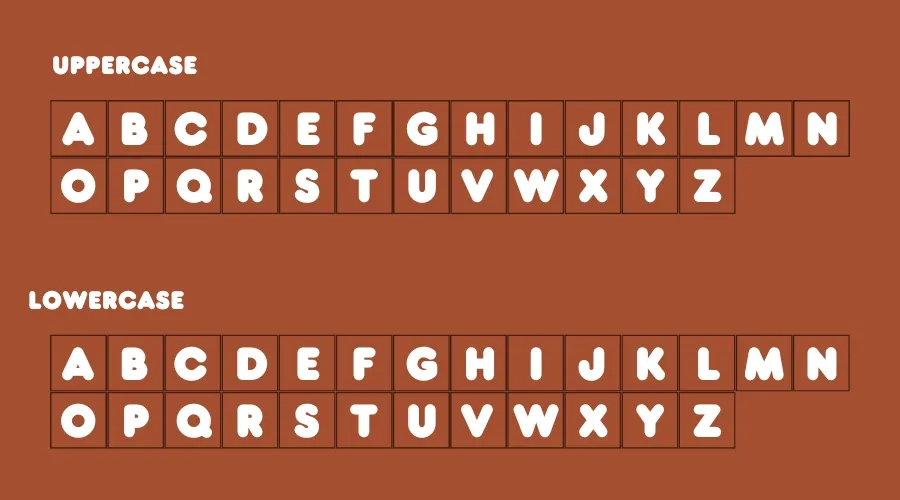
About Frankfurter Font
The Frankfurter font Is an attractive and famous fancy typeface. It was designed by a well-known graphic designer named Alan Meeks. Its textures are bold and look like 3d shapes, and it builds two different weights regular and black.
The most unique feature of this casual, sans-serif texture is its curved or spherical airports. This font has both file formats TrueType and OpenType and is perfect for CSS and adobe photoshops.